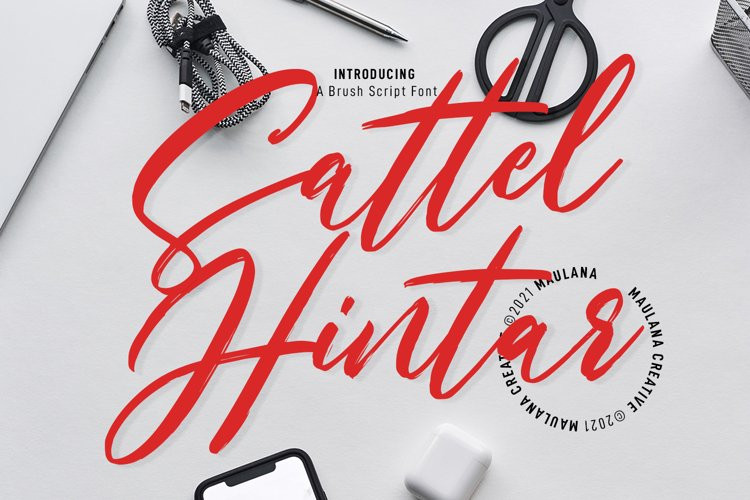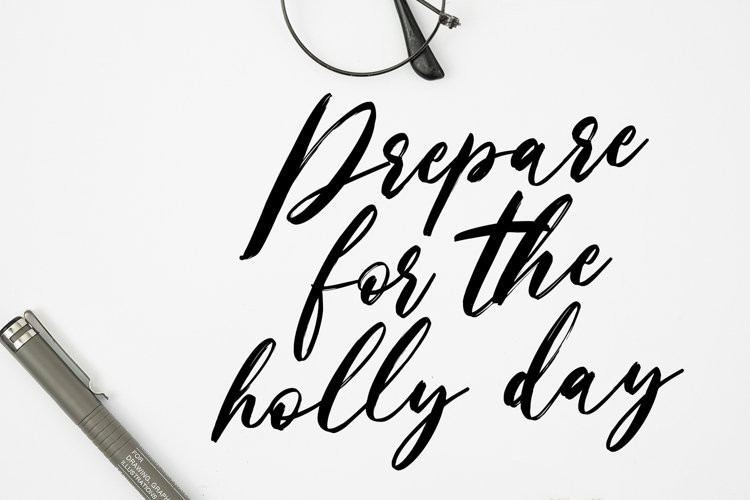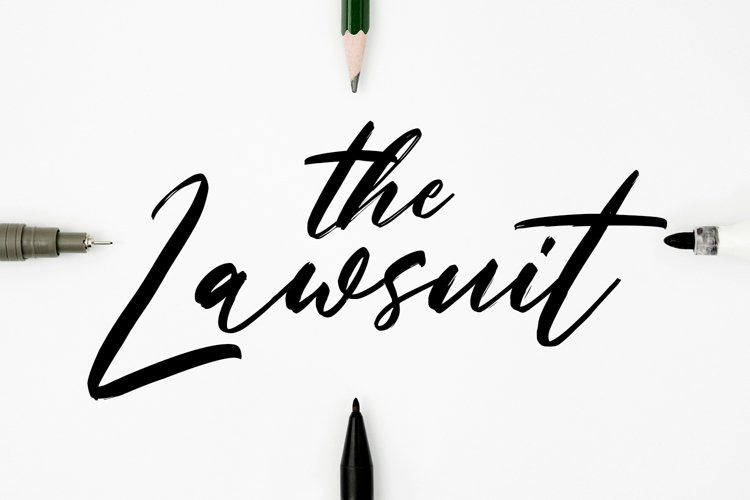
Sattel Hintar Font
Sattel Hintar FontSattel Hintar Brush Script Font
Sattel Hintar is a brush script font. With rough brush stroke, fun character with a bit of ligatures and has a two files lowercase alternates. To give you an extra creative work. Sattel Hintar font support multilingual more than 100+ language. This font is good for logo design, Social media, Movie Titles, Books Titles, a short text even a long text letter and good for your secondary text font with sans or serif. Make a stunning work with Sattel Hintar font.